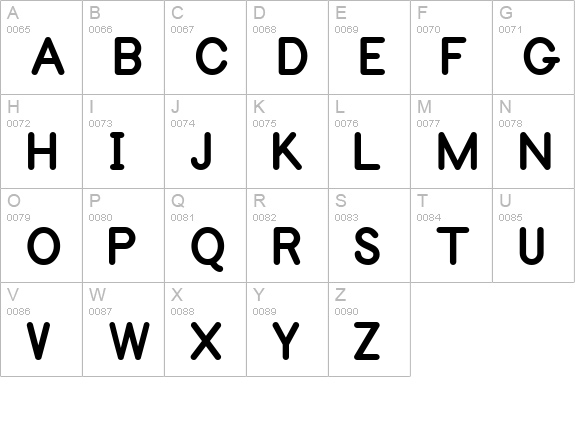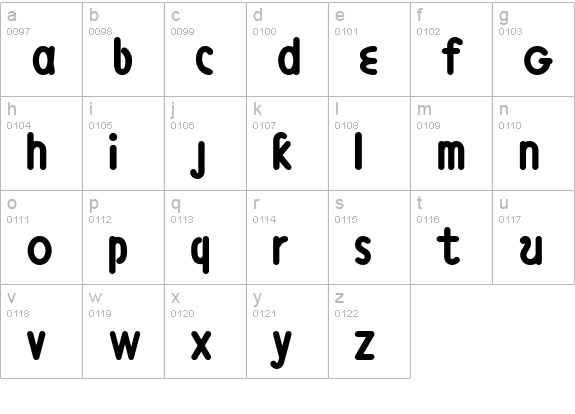
Philadelphia LineBold Aligned Font Details
Philadelphia LineBold Aligned is a sleek and modern font that exudes confidence and sophistication. With its sharp lines and bold appearance, this font is perfect for making a statement in any design project. Whether you are creating a poster, a logo, or a website, Philadelphia LineBold Aligned will help your text stand out and grab attention. The best part about Philadelphia LineBold Aligned is that it is completely free to download at FontsMarket.com. This means that you can add this stylish font to your collection without having to spend a penny. Don't miss out on this fantastic opportunity to elevate your designs with Philadelphia LineBold Aligned. Download it now and start creating stunning visuals that leave a lasting impression.